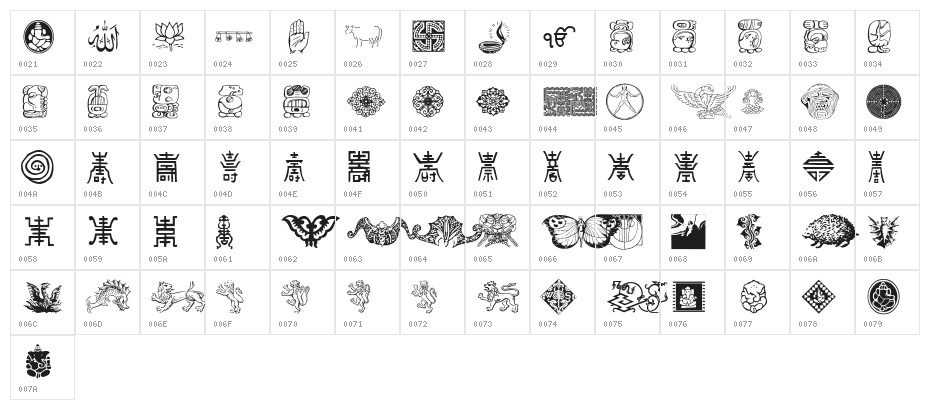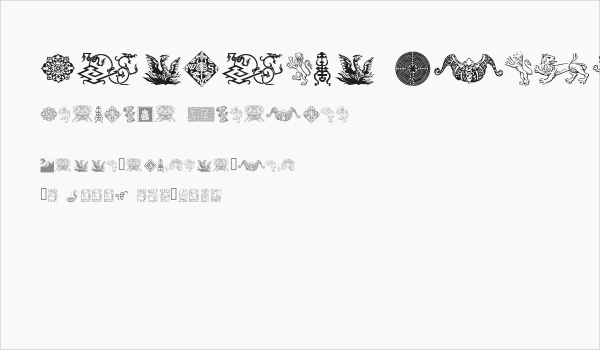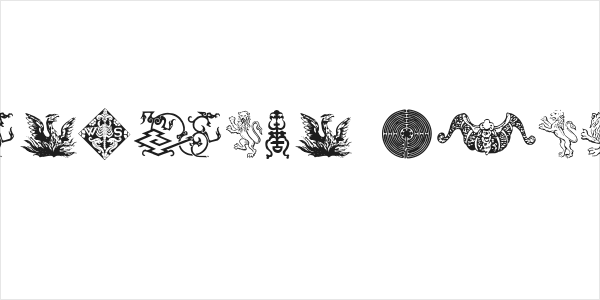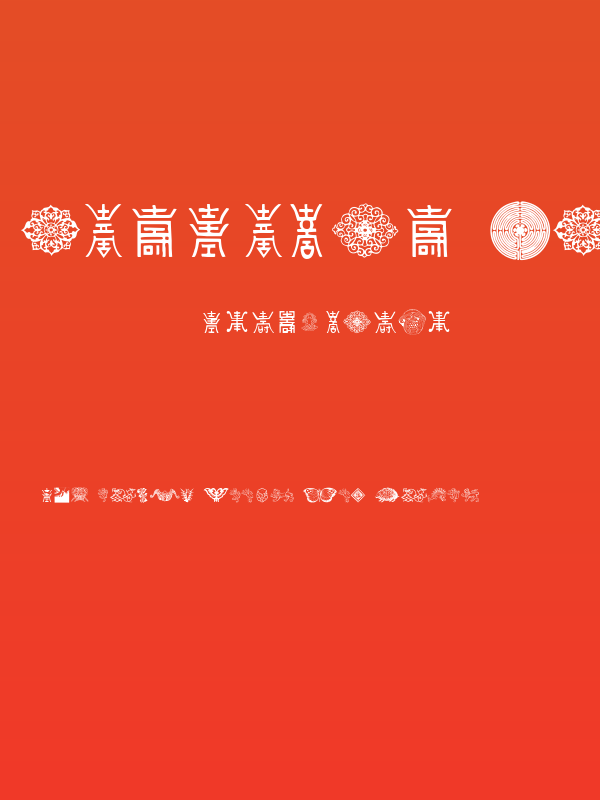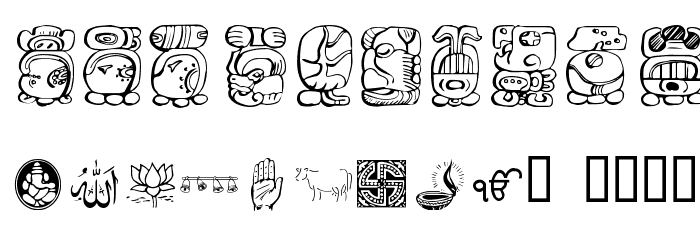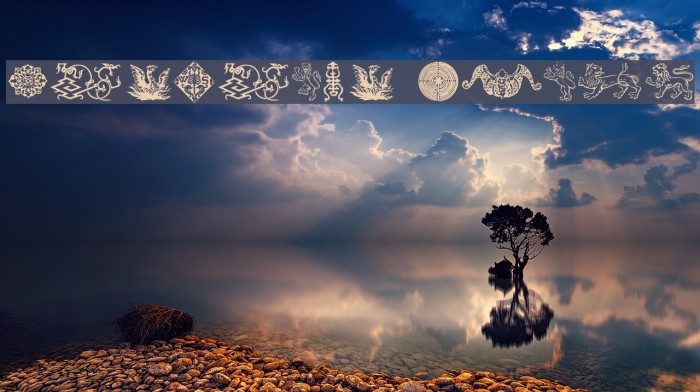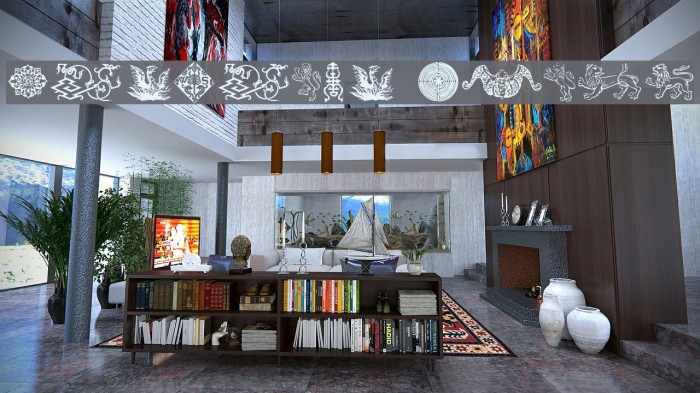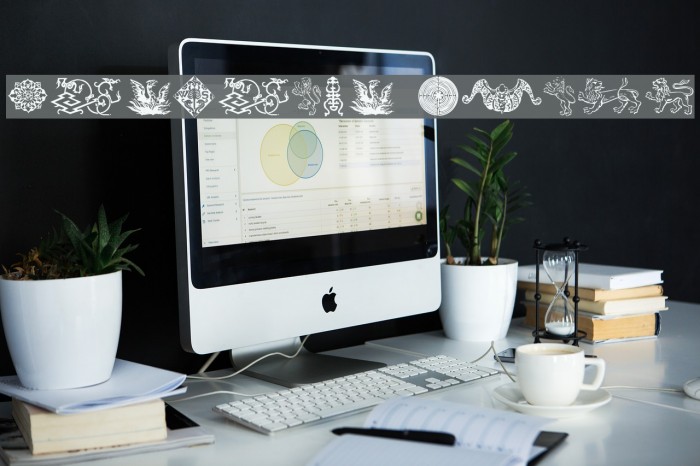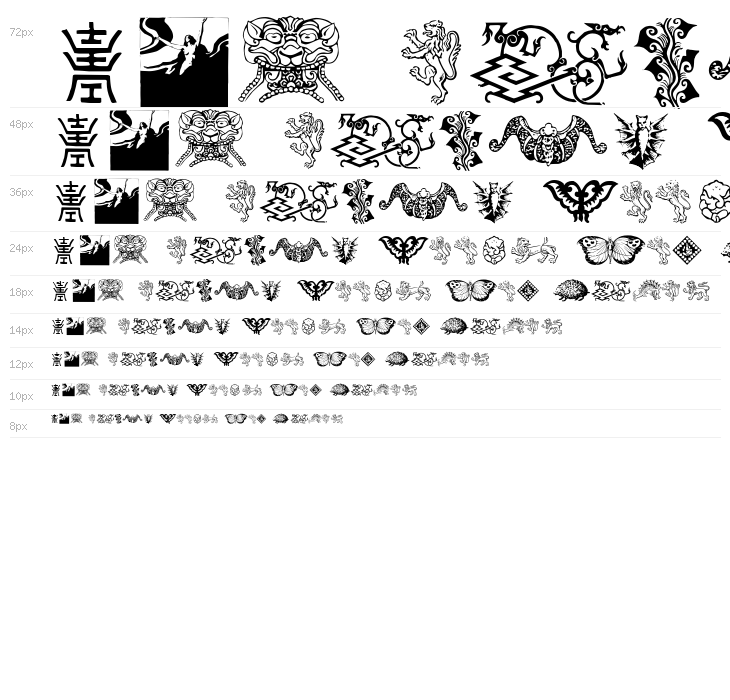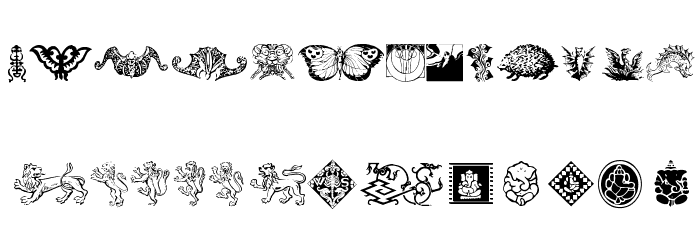
Cultural Icons Font
Cultural Icons Description
A highly decorative and eclectic collection of cultural symbols, icons, and pictograms representing various traditions, mythologies, and scripts from around the world. The set includes intricate line art, stylized animals, religious symbols, and glyph-like characters, each with unique detailing and visual complexity.
| Overall Style | Decorative, Eclectic, Cultural |
| Use Case | Logos, Icons, Thematic illustrations, Educational graphics |
| Proposed Projects | Educational materials, cultural exhibitions, museum graphics, themed branding, heritage projects, decorative posters. |